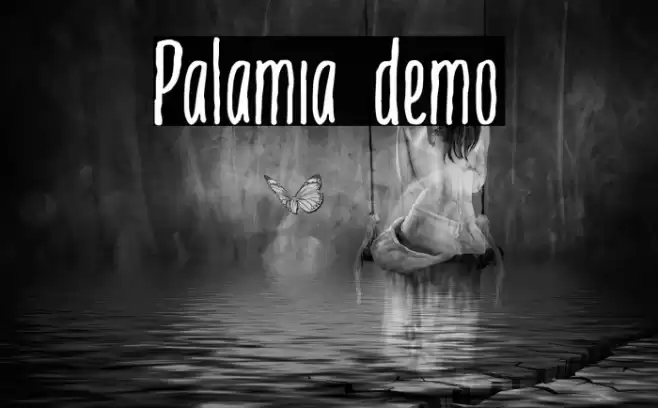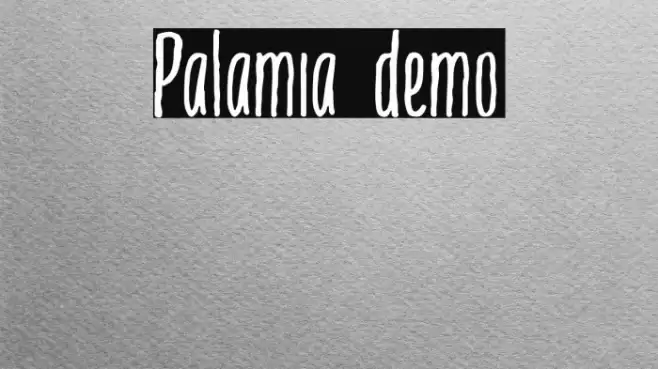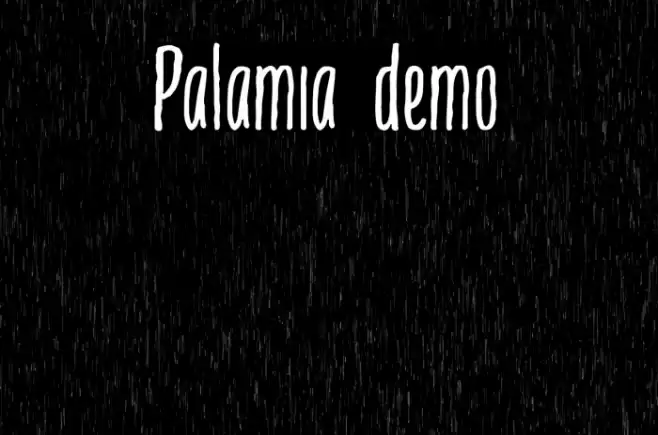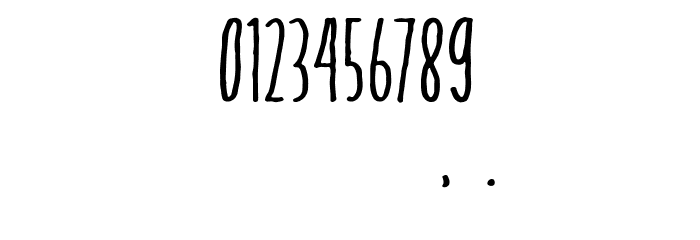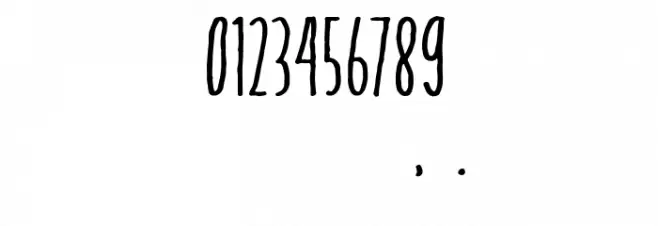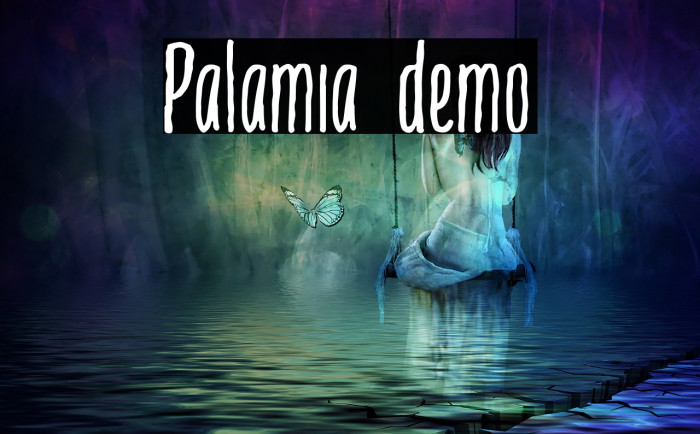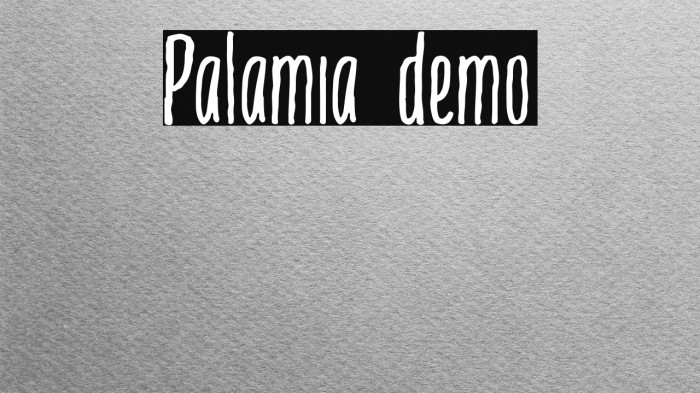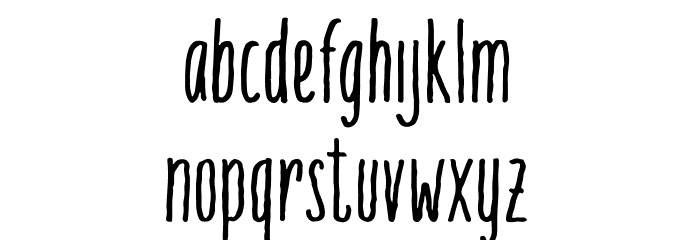
Palamia demo Font
Palamia demo Description
This font features a unique, hand-drawn aesthetic with irregular strokes that give it a playful and organic feel. The characters are tall and narrow, with slight variations in line thickness that add to its handcrafted appearance. The uppercase and lowercase letters maintain a consistent style, with elongated forms and subtle curves. Numbers and special characters are designed to match the overall whimsical style, making it suitable for creative and artistic projects.
A playful, hand-drawn font with tall, narrow characters and an organic feel from Uncategorized fonts.
- Proposed Projects: Ideal for creative projects such as invitations, greeting cards, posters, and branding materials that require a personal touch.